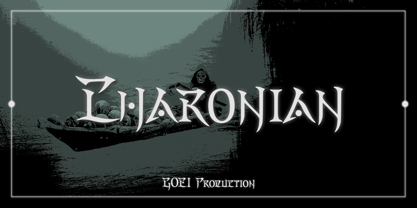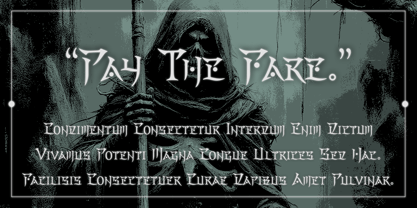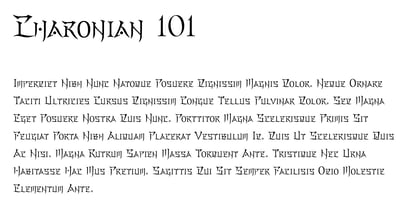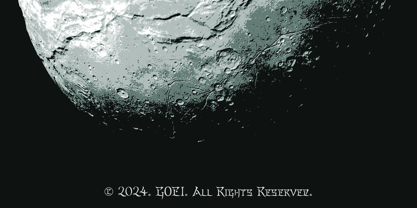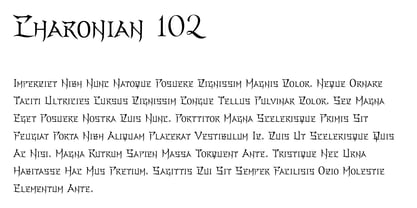
Charonian
by Goei
The Charonian Font Family was designed by Inmyo Jeong and published by Goei. Charonian contains 2 styles and family package options.
Typeface Charonian applied the Korean serif style to Latin serif, experiment how both styles can be put together.
The output turned out to be very interesting, which has unique and exotic aura.
We, the foundry of GOEI Production proudly release this font as our official font
as GOEI originally strarted from a small occult club.
Charonian 101 : Original version of the typeface
Charonian 102 : Advanced version for better readability
Designers: Inmyo Jeong
Publisher: Goei
Foundry: Goei
Design Owner: Goei